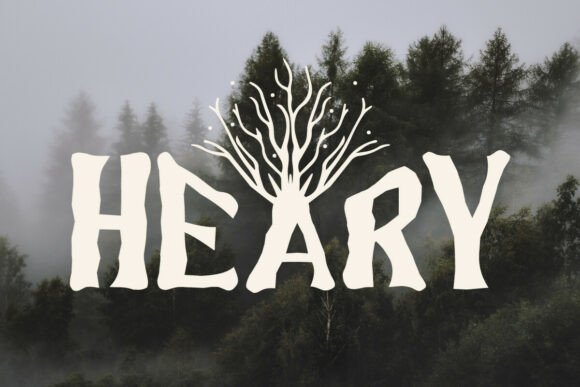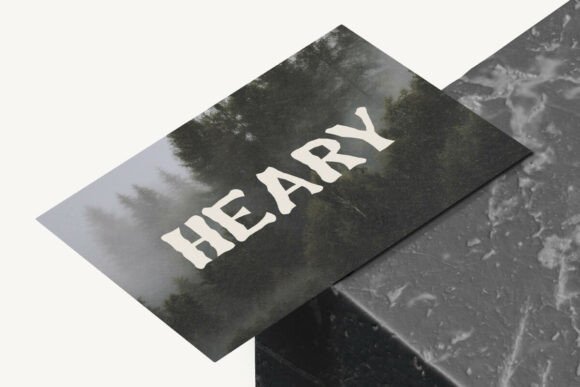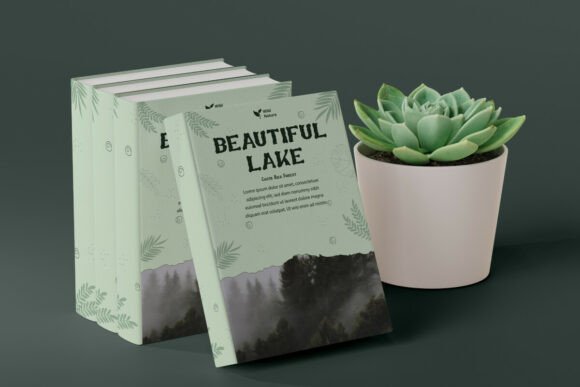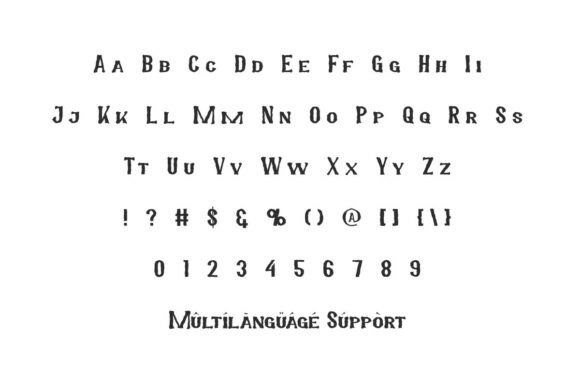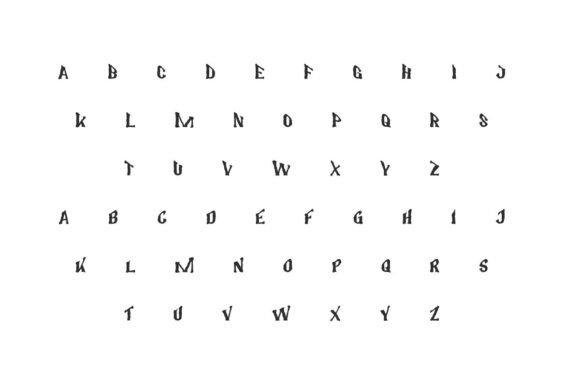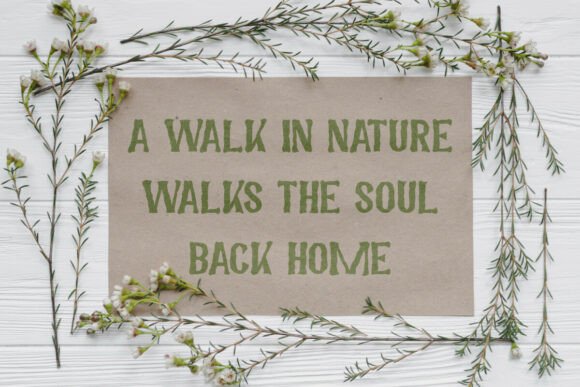
Unleash the Wild Beauty of Nature with Heary Font
Are you looking for a typeface that captures the essence of the great outdoors? Do you want to evoke a sense of adventure, heritage, and craftsmanship in your design projects? Look no further than Heary Font, an organic decorative typeface that embodies the raw, untamed beauty of nature.
The Origins of Heary Font
Heary Font is a unique typeface that appears to have been carved directly from the woods. Its irregular, hand-drawn edges and earthy weight give it a distinctive, organic feel that’s perfect for creating a natural, effortless aesthetic. This font is designed to transport your audience to a world of rustic charm and simplicity, where the boundaries between nature and craftsmanship blur.
Cabin-Core Aesthetics and Outdoor Adventure Branding
Heary Font is tailor-made for “cabin-core” aesthetics, outdoor adventure branding, and artisanal products. Whether you’re designing a logo for a craft beer brewery, a camping gear company, or a rustic restaurant, this font will instantly establish an authentic, handmade vibe. The Heary typeface speaks of heritage, storytelling, and a deep connection to the natural world – perfect for brands that want to convey a sense of tradition and craftsmanship.
Unique Illustrative Elements
One of the standout features of Heary Font is its unique illustrative elements, such as the striking tree-branch motif. These elements allow you to create a complete visual identity within a single wordmark, adding an extra layer of depth and meaning to your design. With Heary Font, you can craft a distinctive brand identity that sets you apart from the competition.
A Designer’s Dream
Heary Font is a designer’s dream for projects that require a “handmade” touch without looking amateur. The font’s organic, hand-drawn feel gives it a warm, inviting quality that’s perfect for creating a sense of connection with your audience. Whether you’re designing a label for a small-batch craft beer or a menu for a rustic restaurant, Heary Font will add a touch of authenticity and charm to your design.
Maximizing the Impact of Heary Font
To maximize the impact of Heary Font, try layering it with textured overlays like woodgrain or stamped ink effects. This will add an extra layer of depth and tactility to your design, making it feel even more organic and natural. Heary Font also pairs wonderfully with other natural textures and materials, such as stone, leather, or wood.
Perfect for Crafters and Makers
Heary Font is perfect for crafters and makers who want to add a touch of handmade charm to their branding and packaging. Whether you’re a woodworker, a potter, or a textile artist, this font will help you connect with your audience on a deeper level. With Heary Font, you can create a distinctive brand identity that reflects your values and aesthetic.
Tips for Using Heary Font
- Use Heary Font for headlines and titles to add a touch of drama and flair to your design.
- Experiment with different colors and textures to find the perfect combination for your brand.
- Don’t be afraid to mix and match Heary Font with other fonts to create a unique visual identity.
- Use the unique illustrative elements of Heary Font to add an extra layer of meaning to your design.
Heary Font is a unique and versatile typeface that’s perfect for designers and crafters who want to connect with the raw, untamed beauty of nature. With its irregular, hand-drawn edges and earthy weight, this font embodies the spirit of craftsmanship and heritage. Whether you’re designing a logo, a label, or a menu, Heary Font will help you create a distinctive brand identity that resonates with your audience.